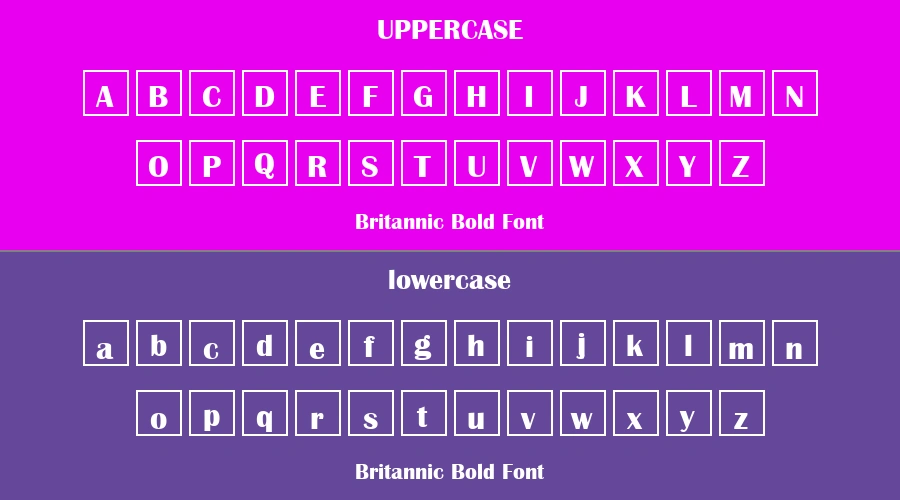
About Britannic Bold Font
When typographic excellence matters most, Britannic Bold Font delivers through its thoughtful blend of concave curves and textural consistency. Specially crafted for logo design, it offers the versatility and technical mastery required for sophisticated design work. Every detail serves a purpose.
The character set showcases thoughtful details like geometric construction alongside functional connecting forms. This proves especially valuable in business cards, where file efficiency directly influences results. Particular attention was paid to terminal style and technical tradition during development.